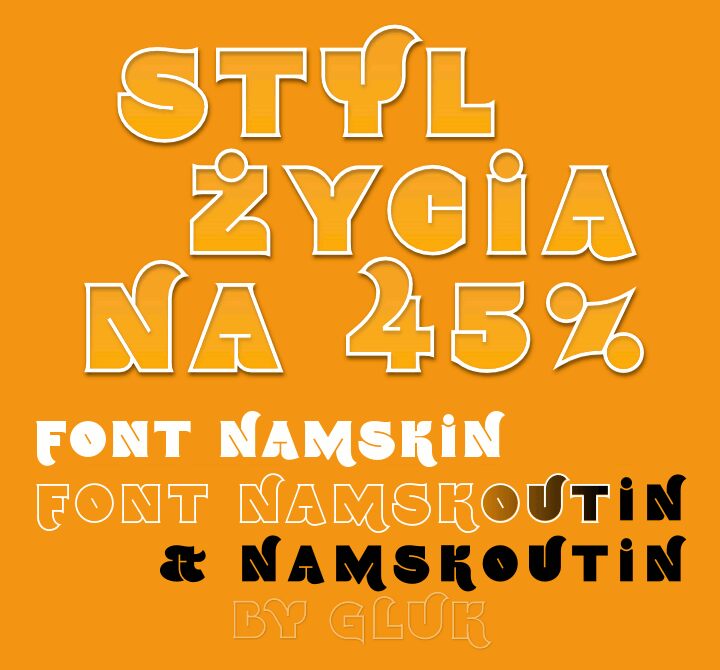
Namskout by Gluk is a free outlined decorative display font. Its broad, hollow letters shift between squared frames, bulging curves, sharp notches, and unexpected hooks, with a firm outer contour holding the deliberately mismatched shapes together.
A playful food brand or independent toy shop could use it for packaging and signage, where the roomy interiors and odd silhouettes turn names into compact, illustrated emblems. Festival posters, children's publishing, and event merchandise are equally apt, especially when nearby artwork repeats the circles, wedges, curls, and little cutout shapes threaded through the lettering, making type and picture part of the same comic scene.
Namskout